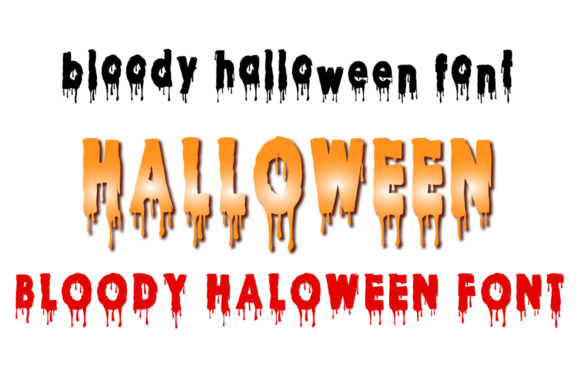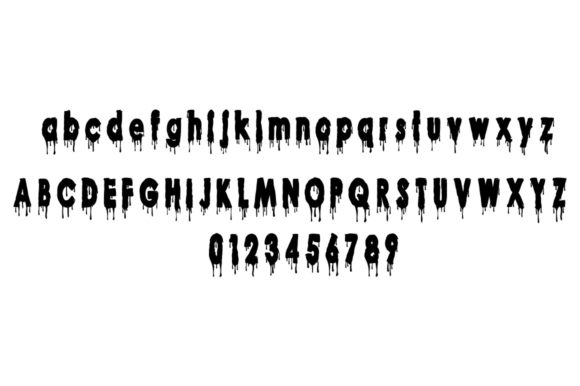
Get Ready for a Spooky Design
As the days get shorter and the nights get darker, I find myself itching to unleash my creative side. There’s something about the eerie atmosphere of Halloween that sparks my imagination and pushes me to think outside the box. It’s the perfect time to experiment with bold and unconventional design elements – like the Bloody Halloween Font.
This dark and spooky display font is a game-changer for any designer looking to create a hauntingly beautiful design. With its bold, gothic letters, the Bloody Halloween Font is perfect for creating eye-catching graphics, posters, and social media posts that capture the essence of the spooky season. Whether you’re designing a haunted house flyer or a spooky social media post, this font is sure to add an extra layer of creepiness to your design.
Bloody Halloween Font Key Features
- Font Style: A spooky, horror-themed font with a bloody, distressed effect.
- Unique Characteristics: Features a unique blend of bloodstains, tears, and other horror-themed effects, adding a creepy atmosphere to any design.
Bloody Halloween Font Review
I recently had the chance to work with the Bloody Halloween Font, and I wanted to share my honest thoughts on its design and functionality.
Firstly, I appreciate the unique aesthetic of this font. It’s perfect for projects that require a spooky or horror theme, and the bold, gothic letters really stand out.
- Great for horror-themed projects, such as posters, invitations, or social media graphics.
- The font’s bold lines and heavy weight make it ideal for headings or titles.
While the Bloody Halloween Font excels in certain areas, it’s not without its limitations. Here are a few things to consider:
- Some letters may be difficult to read, especially at smaller font sizes.
- The font’s lack of variety in styles and weights may limit its versatility.
- It may not be suitable for projects that require a more subtle or elegant design.
In conclusion, the Bloody Halloween Font is a solid choice for projects that require a bold, spooky aesthetic. While it may have some limitations, its unique design and compatibility make it a worthwhile addition to any designer’s toolkit.
The Bloody Halloween Font is commonly used for:
- Halloween-themed designs and decorations.
- Spooky and horror-themed projects.
- Graveyard